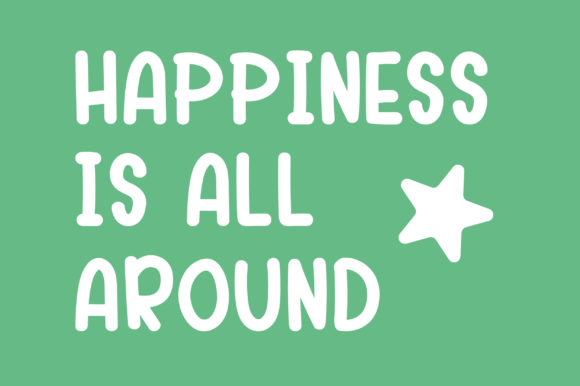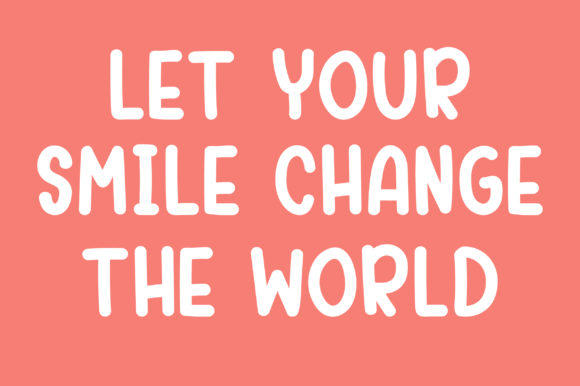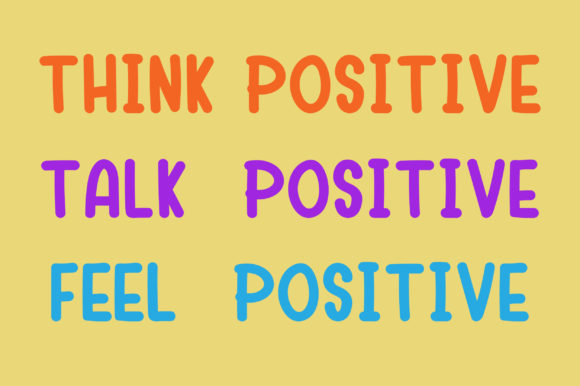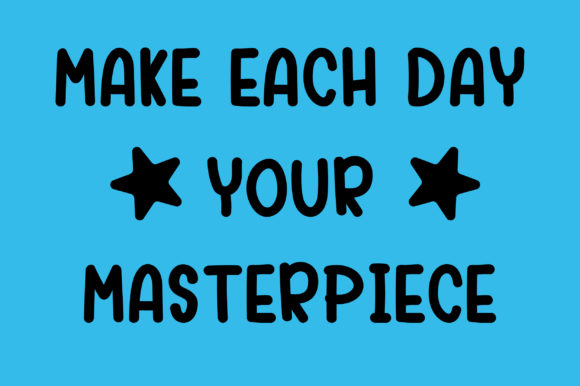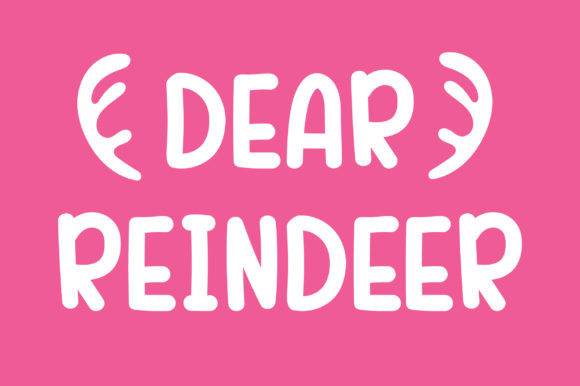
Introducing Dear Reindeer: The Ultimate Cute Handwritten Font for Creative Projects
Are you a designer, crafter, or DIY enthusiast looking for a font that can add a touch of whimsy and cheer to your creative projects? Look no further than Dear Reindeer, a delightful handwritten font that’s perfect for a wide range of applications. In this article, we’ll take a closer look at the Dear Reindeer font, its features, and how you can use it to elevate your designs and crafts.
What is Dear Reindeer Font?
Dear Reindeer is a cute handwritten font with a cheerful feel that’s sure to capture the hearts of designers and crafters alike. This font is designed to bring a sense of playfulness and joy to your creative projects, making it perfect for a wide range of applications, from social media graphics and Instagram posts to DIY projects and calligraphy scripts.
Key Features of Dear Reindeer Font
So, what makes Dear Reindeer font so special? Here are some of its key features:
• Cute and Cheerful Design: Dear Reindeer font has a unique, handwritten design that’s both cute and cheerful. Its playful feel makes it perfect for creative projects that require a touch of whimsy.
• Handwritten Style: This font has a beautiful, handwritten style that’s perfect for calligraphy scripts, DIY projects, and other creative applications.
• Instagram-Ready: With its trendy and modern design, Dear Reindeer font is perfect for Instagram posts, stories, and highlights.
• Versatile: This font can be used for a wide range of creative projects, from social media graphics and posters to DIY crafts and party decorations.
How to Use Dear Reindeer Font in Your Creative Projects
Now that we’ve covered the features of Dear Reindeer font, let’s talk about how you can use it in your creative projects. Here are some ideas to get you started:
• Instagram Graphics: Use Dear Reindeer font to create eye-catching Instagram graphics, including posts, stories, and highlights.
• DIY Projects: Add a personal touch to your DIY projects, such as party decorations, gift tags, and cards, with this beautiful handwritten font.
• Calligraphy Scripts: Use Dear Reindeer font as a calligraphy script for a wide range of applications, from wedding invitations to event signage.
• Social Media Graphics: Create engaging social media graphics, including Facebook posts, Twitter headers, and Pinterest graphics, with this versatile font.
Why Choose Dear Reindeer Font?
With so many fonts available, why choose Dear Reindeer font for your creative projects? Here are some reasons why:
• Unique Design: Dear Reindeer font has a unique, handwritten design that’s sure to stand out from the crowd.
• Easy to Read: This font is easy to read, making it perfect for body text and captions.
• High-Quality: Dear Reindeer font is a high-quality font that’s designed to deliver exceptional results.
• Versatile: This font can be used for a wide range of creative projects, making it a great addition to your font library.
In conclusion, Dear Reindeer font is a cute handwritten font with a cheerful feel that’s perfect for designers, crafters, and DIY enthusiasts. With its unique design, versatility, and ease of use, this font is sure to become a favorite in your font library. Whether you’re looking for fonts for Instagram or calligraphy scripts for DIY projects, Dear Reindeer font is the perfect choice. So why wait? Download Dear Reindeer font today and start creating beautiful, eye-catching creative projects that will leave a lasting impression!